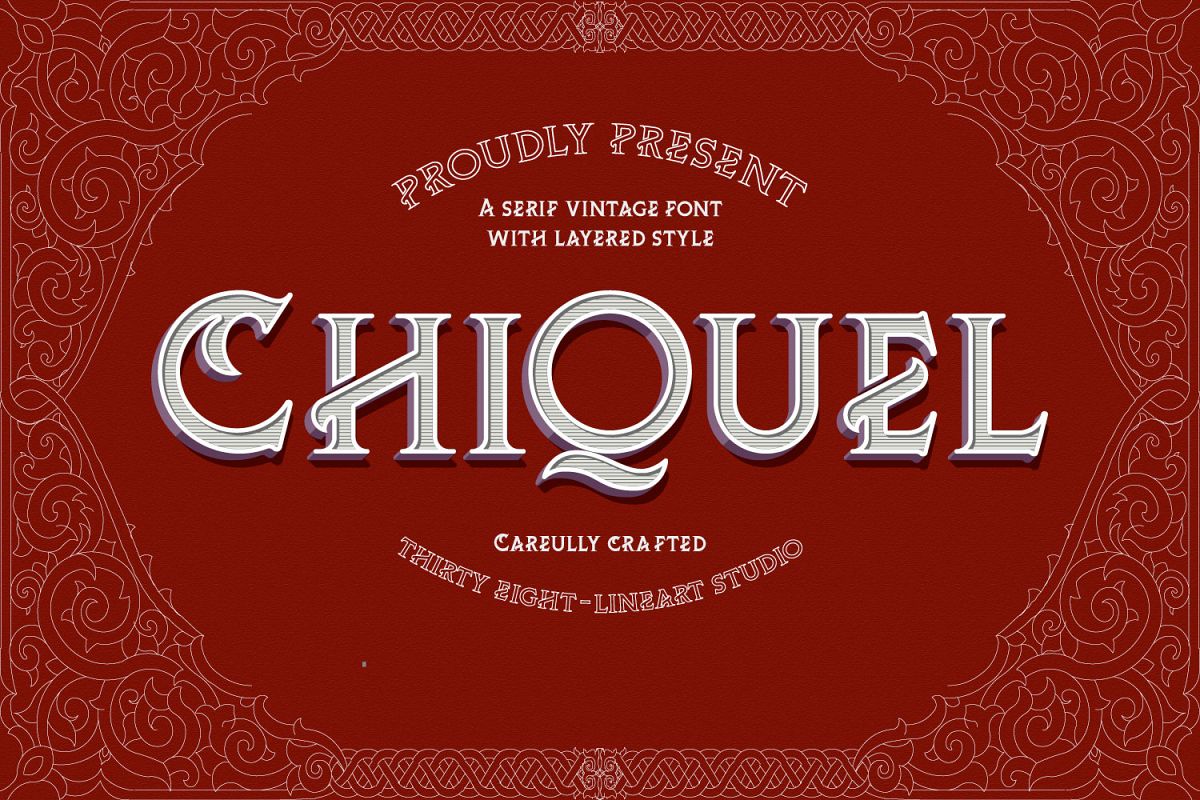
ChiQuel Serif Vintage
ChiQuel is a vintage serif font consisting of 7 layers, namely; regular solid, Outline, Drop Shadow, Extrude light, Extrude dark, Inner shadow and texture. the combination of layers and the right colour saturation selection presents a very neat 3D dimension. Regular and outline fonts can stand alone so this font allows for more stylish designs. We designed this font to create logos, product branding, and craft. The combination and typography presentation techniques make this font like a chameleon that can change the style, classic style, classy, ​​elegant, modern, gothic and vintage. Look at some of the preview images that we made, hopefully, they can be your reference in the design please see the video link: https://youtu.be/L-aNAFkGT8w